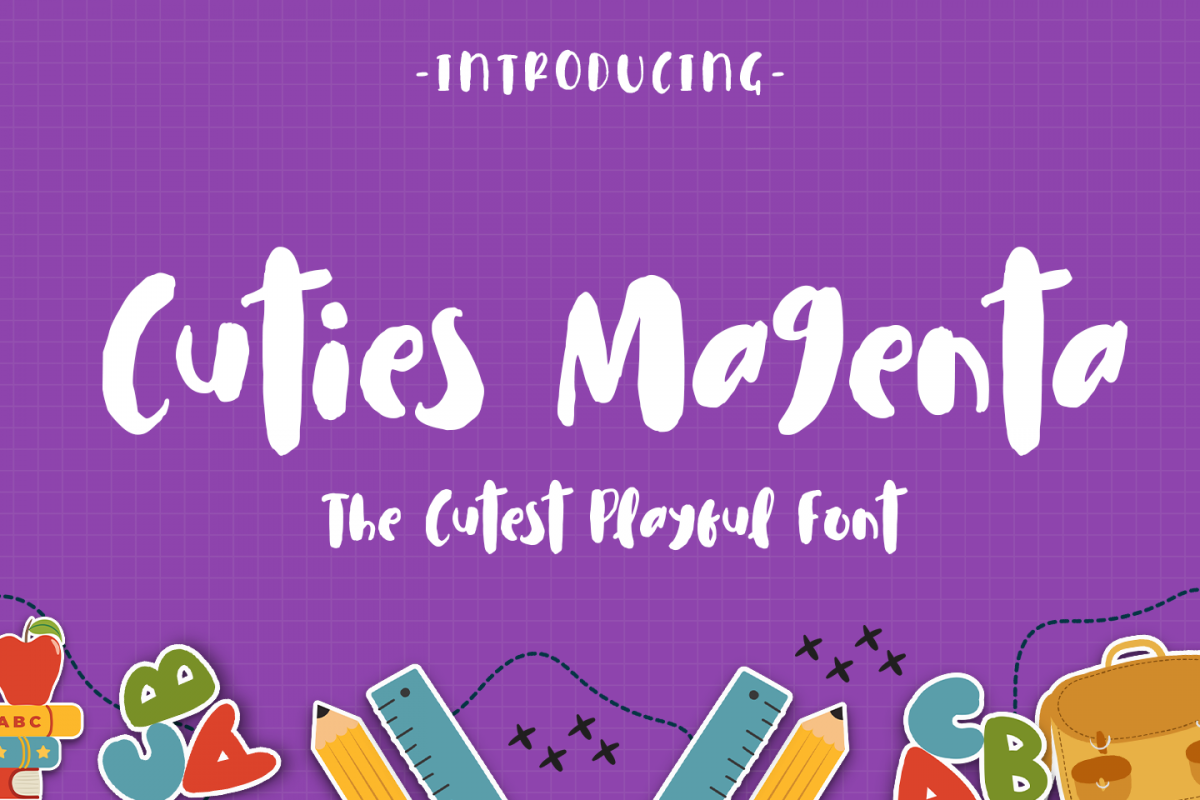
Cuties Magenta - Playful Font -
Cuties Magenta Doodles
Cuties Magenta
introducing
CUTIES MAGENTA
- the cutest playful font -
This font is great for quotes, branding packaging and more that need kiddie taste.
It came with multilingual support.
The doodles make it so perfectly.
very suitable for those of you who like simplicity